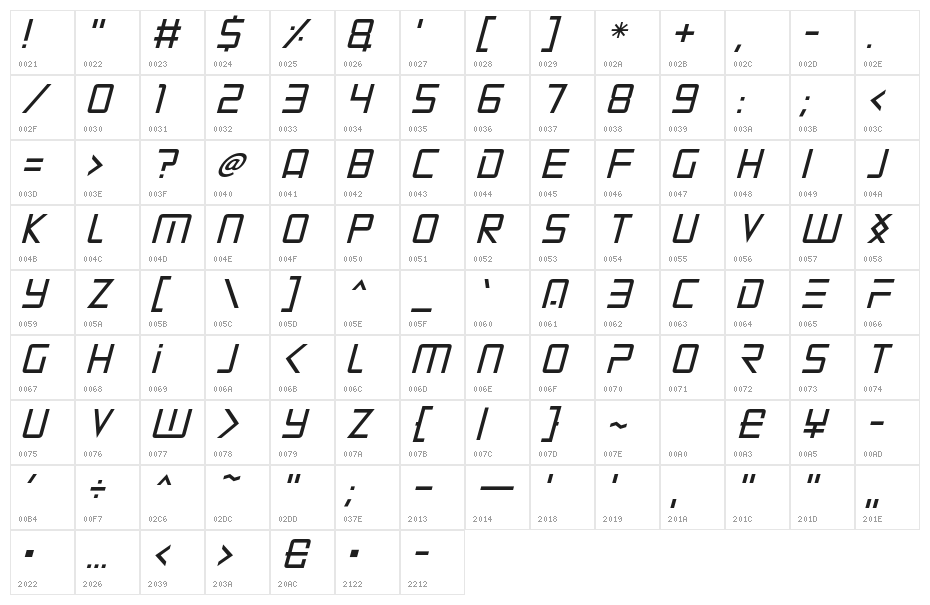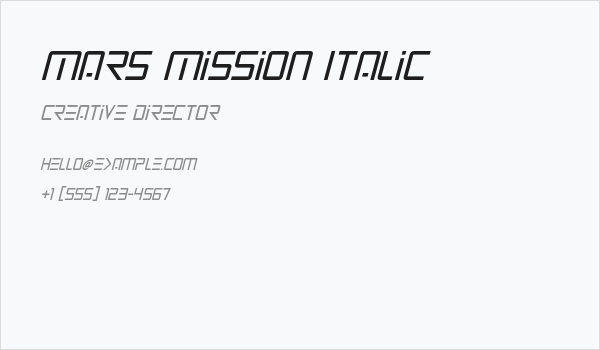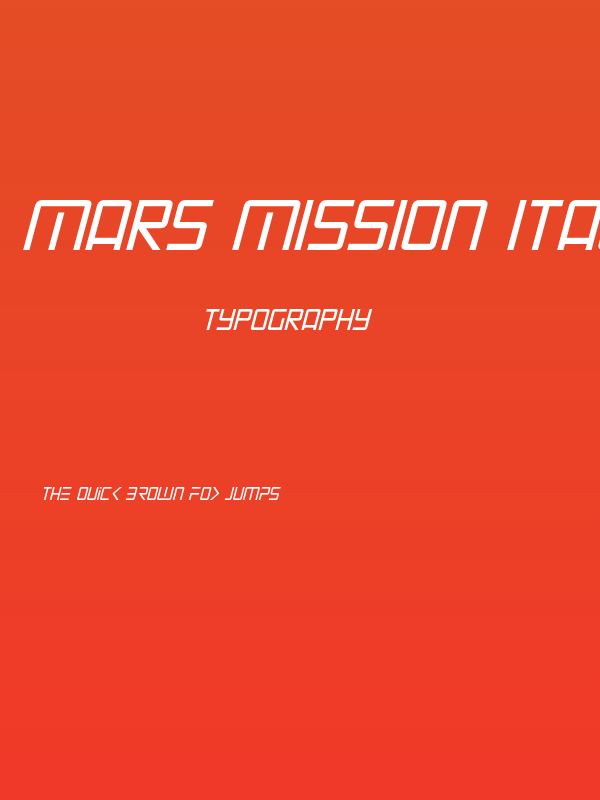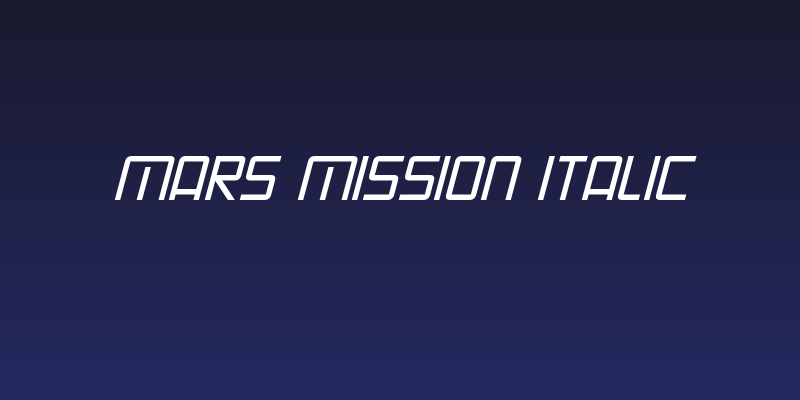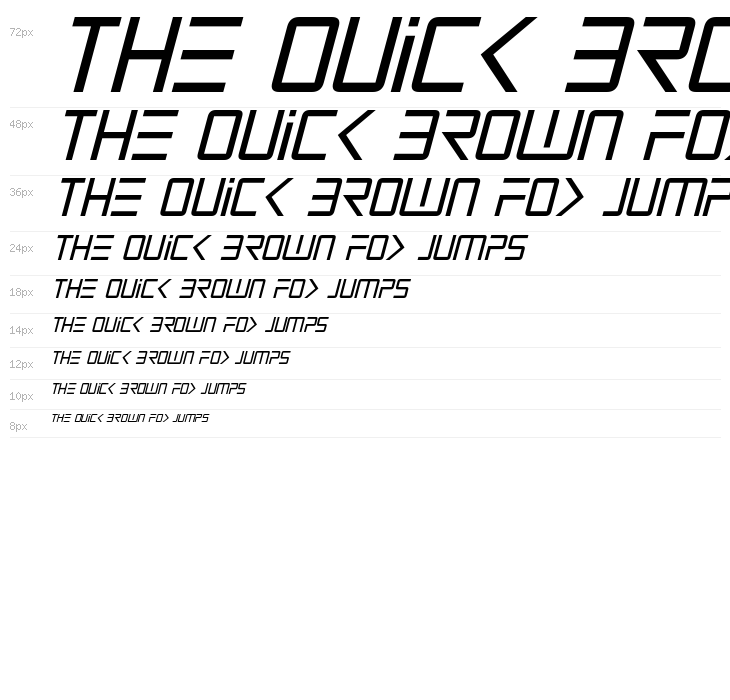
Mars Mission Italic Font
Mars Mission Italic Description
This font features a futuristic and sleek design with italicized characters that convey a sense of motion and modernity. The angular and geometric shapes give it a distinct, cutting-edge appearance, making it ideal for projects that require a contemporary and dynamic look. The consistent slant across all characters enhances the sense of speed and forward movement. The font maintains a uniform stroke width, providing a clean and polished aesthetic. Its unique style is suitable for technology-related themes or any creative project that aims to capture a sense of innovation and progress.